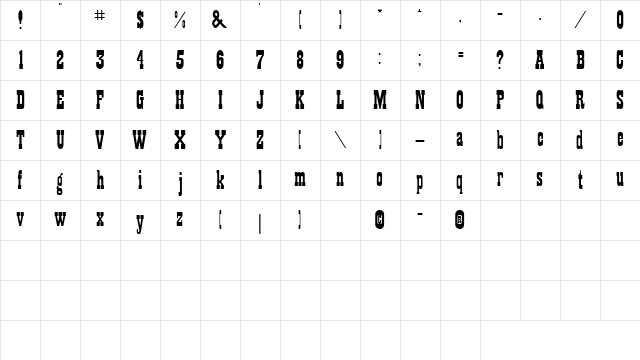
TumbleweedExpandedSSK Regular Free Font
TumbleweedExpandedSSK Regular
Complete TumbleweedExpandedSSK Regular glyph index. Displaying only characters natively supported by TumbleweedExpandedSSK Regular font.
Design Context for TumbleweedExpandedSSK
TumbleweedExpandedSSK is a composed and adaptable typeface that performs quietly and consistently across a wide range of design contexts.